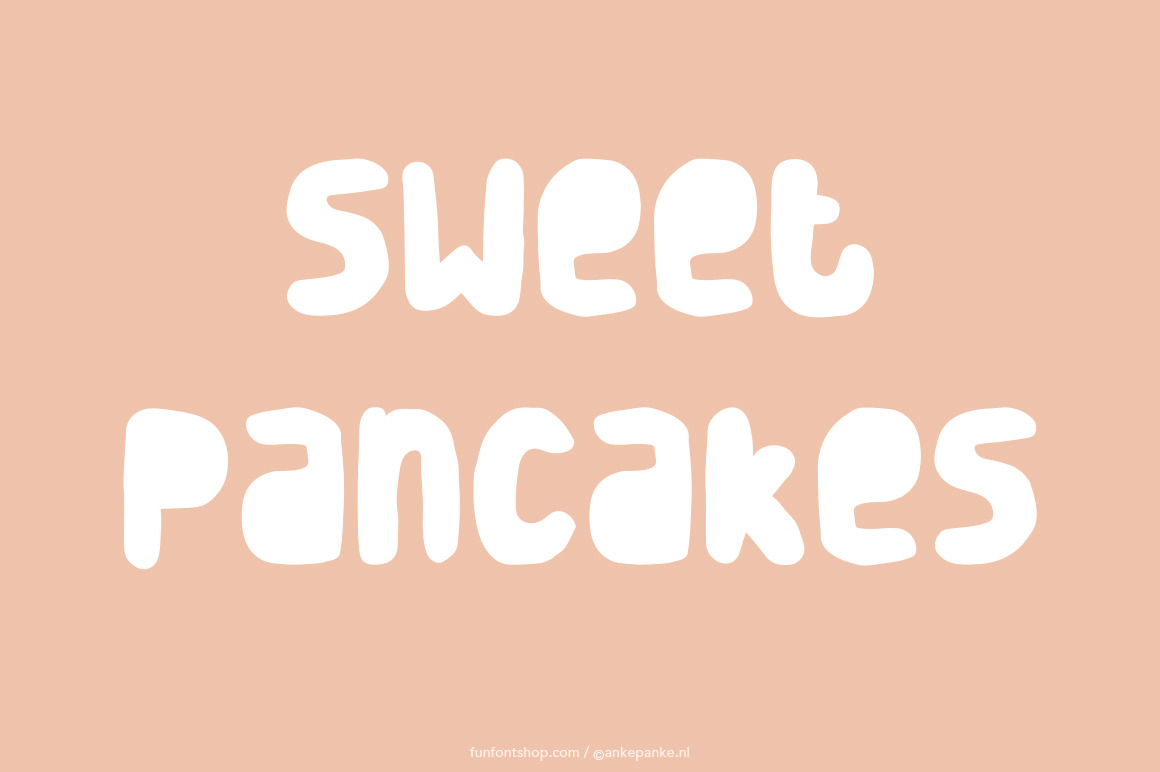
Sweet Pancakes handmade Font
The letters of this happy font are inspired by funny shaped pancakes. This font was first draw by hand, scanned, vectorized and converted to a TTF file so you type with it. They have some imperfections, but I believe that adds to the handmade feeling.
- Letters Uppercase, lowercase and numbers
- Punctuation !?&*±+=-_,.:;'"/|({[@]})